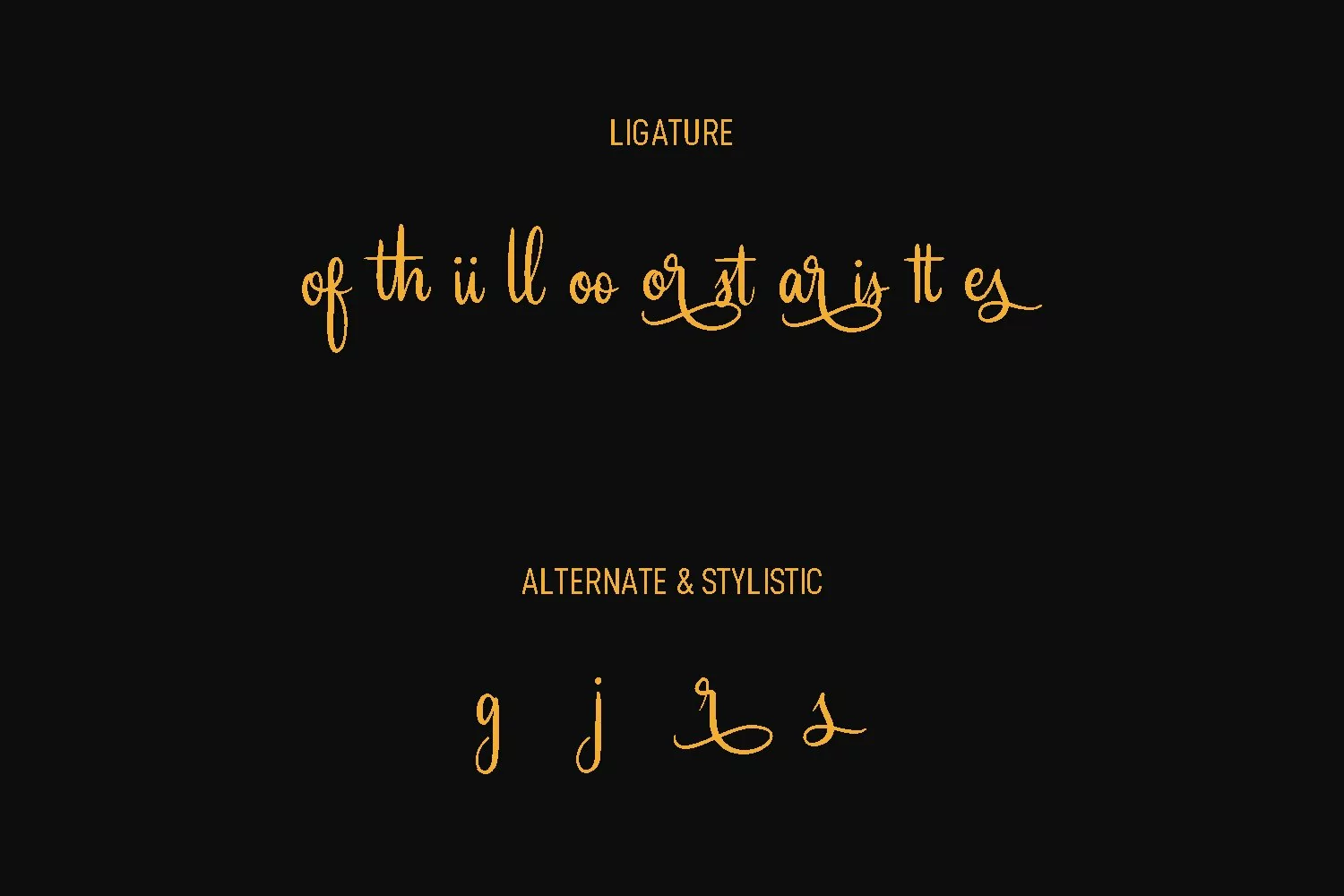
Fesamore is a fancy cursive script font. With light contrast stroke, fun character with a bit of ligatures and alternates. To give you an extra creative work. Fesamore font support multilingual more than 100+ language. This font is good for logo design, Social media, Movie Titles, Books Titles, a short text even a long text letter and good for your secondary text font with sans or serif. Make a stunning work with Fesamore font.